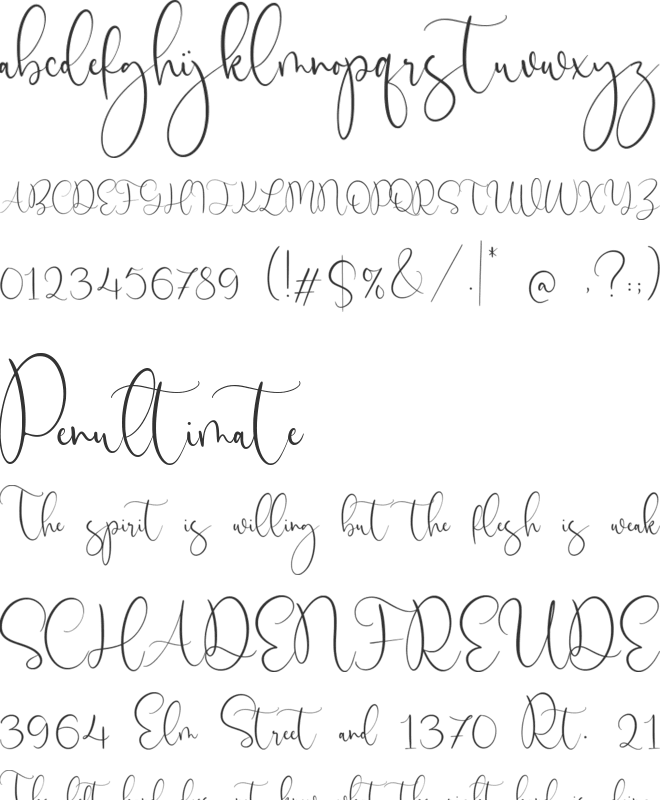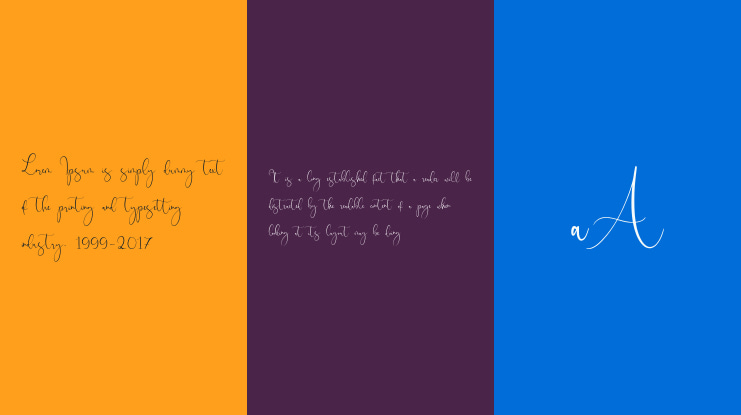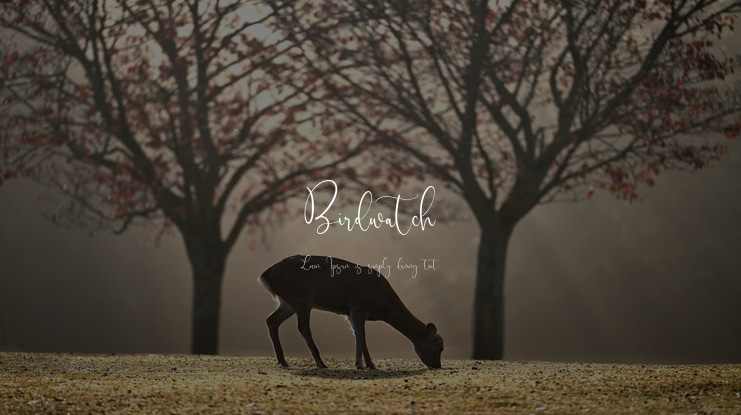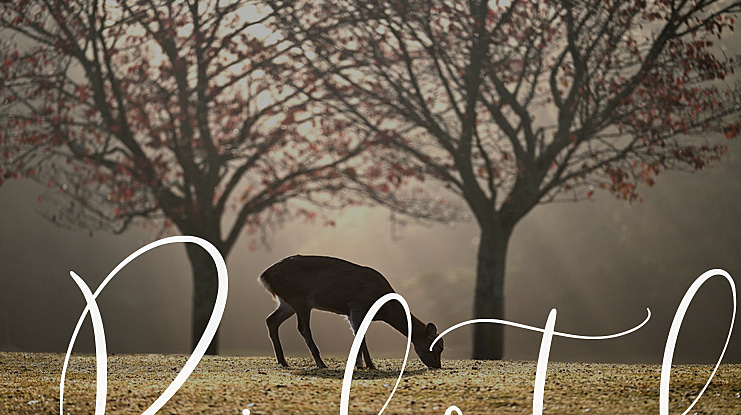
Birdwatch Font
Introducing by Letterative Studio : Blankside Font
Blankside is a Modern Calligraphy Font
Blankside is perfect for product packaging, branding project, megazine, social media, wedding, or just used to express words above the background.
Blankside also multilingual support